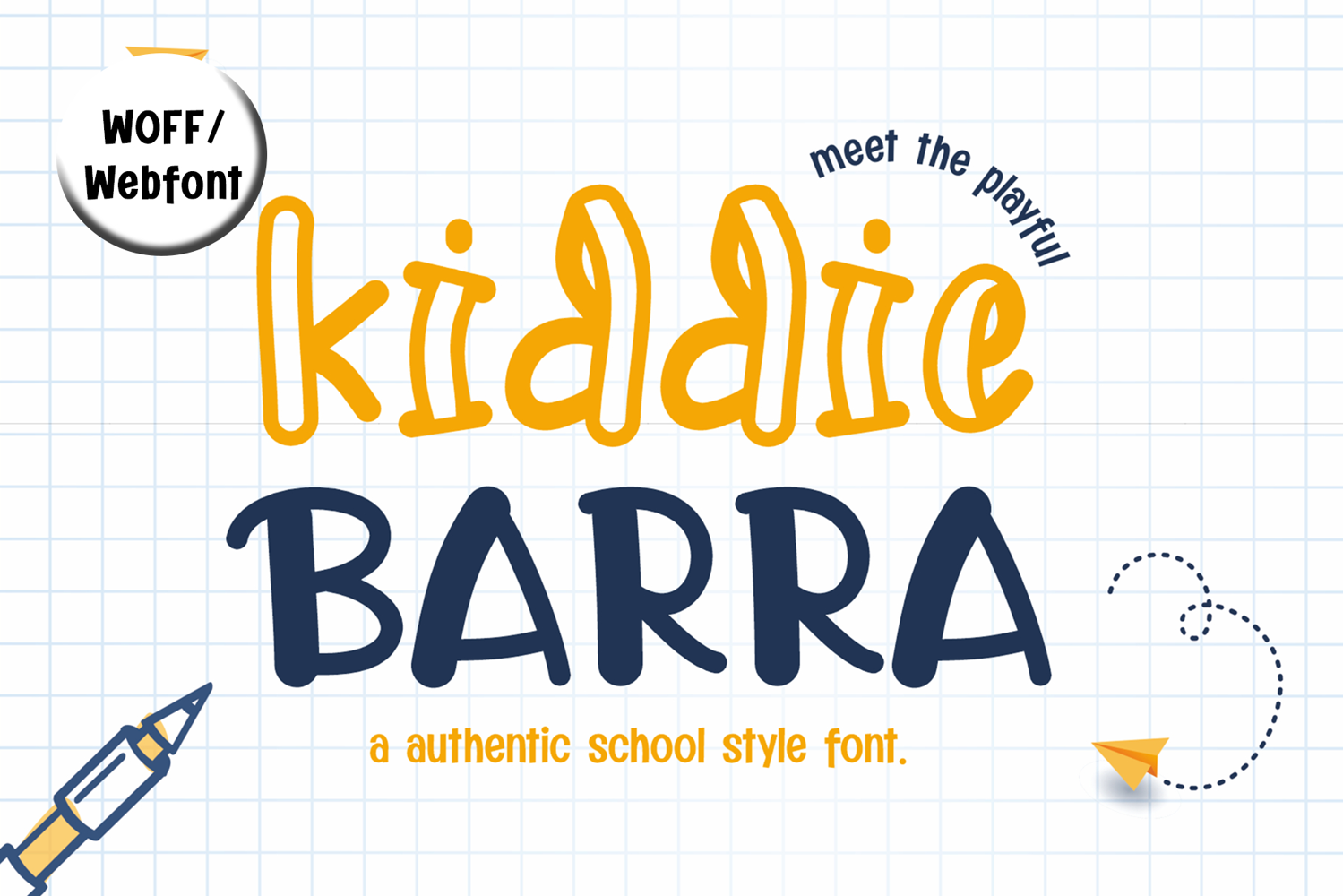
Kiddie Barra | Authentic School Style Webfont WOFF, 2 Styles
Kiddie Barra is a playful webfont available in two styles—Regular and Hollow—perfect for school-themed websites, educational platforms, and creative blogs. Its casual handwritten look adds a fun, childlike personality to your text while remaining highly legible across all devices.
This webfont ensures crisp and sharp rendering, making it ideal for online classrooms, e-learning apps, and kid-friendly brands. Bring your digital projects to life with a font that feels friendly, authentic, and perfectly school-inspired.